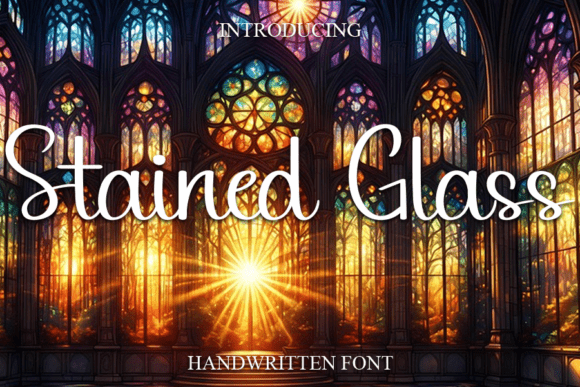
Introducing Stained Glass Font: Elevate Your Designs with Elegance and Warmth
Are you looking for a font that can add a touch of sophistication and warmth to your designs? Look no further than the Stained Glass Font. This beautiful, handwritten script font is perfect for creating stunning visual content that exudes elegance and refinement. In this article, we’ll take a closer look at the Stained Glass Font, its features, and how it can be used to elevate your designs.
What is Stained Glass Font?
Stained Glass Font is a warm and elegant handwritten script font that brings softness and light to every design. Its smooth, flowing curves and gentle bounce in its baseline evoke the feeling of handwritten notes and delicate craftsmanship. This font is perfect for creating designs that require a personal and artistic touch.
Key Features of Stained Glass Font
- Smooth and flowing curves: The Stained Glass Font features smooth, flowing curves that give it a natural and elegant look.
- Gentle bounce in its baseline: The font’s gentle bounce in its baseline adds a touch of playfulness and whimsy to your designs.
- Rounded letterforms: The font’s rounded letterforms give it a soft and approachable look that’s perfect for creating feminine and elegant designs.
- Subtle flair: The font’s subtle flair adds a touch of sophistication and refinement to your designs.
Perfect for Wedding Designs and More
The Stained Glass Font is perfectly suited for a variety of design projects, including:
- Wedding designs: The font’s elegant and refined look makes it perfect for creating stunning wedding invitations, programs, and other wedding-related designs.
- Inspirational quotes: The font’s inspirational and uplifting feel makes it perfect for creating motivational quotes and posters.
- Feminine branding: The font’s feminine and elegant look makes it perfect for creating branding materials for businesses that cater to women.
- Greeting cards: The font’s personal and artistic touch makes it perfect for creating greeting cards for special occasions.
- Faith-based projects: The font’s peaceful and reverent feel makes it perfect for creating designs for faith-based projects.
Inspired by Stained Glass Windows
The Stained Glass Font is inspired by the peaceful glow of stained glass windows. The font’s creator was inspired by the beauty and elegance of stained glass windows and sought to capture their essence in a font. The result is a font that adds a touch of grace and harmony to any design.
Adding a Touch of Elegance to Your Designs
The Stained Glass Font is the perfect way to add a touch of elegance and sophistication to your designs. Its smooth, flowing curves and gentle bounce in its baseline give it a natural and refined look that’s perfect for creating stunning visual content. Whether you’re creating wedding designs, inspirational quotes, or faith-based projects, this font is sure to elevate your designs to the next level.
Why Choose Stained Glass Font?
There are many reasons why you should choose the Stained Glass Font for your design projects. Here are just a few:
- Unique and elegant look: The font’s unique and elegant look sets it apart from other fonts.
- Versatile: The font is versatile and can be used for a variety of design projects.
- Easy to read: The font is easy to read, making it perfect for creating designs that require a lot of text.
- Timeless appeal: The font’s timeless appeal ensures that your designs will look great for years to come.
How to Use Stained Glass Font
Using the Stained Glass Font is easy. Here are just a few tips:
- Use it for headings and titles: The font is perfect for creating headings and titles that require a touch of elegance and sophistication.
- Use it for body text: The font is also suitable for body text, especially for designs that require a personal and artistic touch.
- Experiment with different colors and textures: The font looks great in a variety of colors and textures, so don’t be afraid to experiment.
The Stained Glass Font is a beautiful, elegant, and versatile font that’s perfect for creating stunning visual content. Its smooth, flowing curves and gentle bounce in its baseline give it a natural and refined look that’s perfect for a variety of design projects. Whether you’re creating wedding designs, inspirational quotes, or faith-based projects, this font is sure to elevate your designs to the next level.
- What is the Stained Glass Font?: The Stained Glass Font is a warm and elegant handwritten script font.
- What is the font perfect for?: The font is perfect for creating wedding designs, inspirational quotes, feminine branding, greeting cards, and faith-based projects.
- Is the font easy to read?: Yes, the font is easy to read.